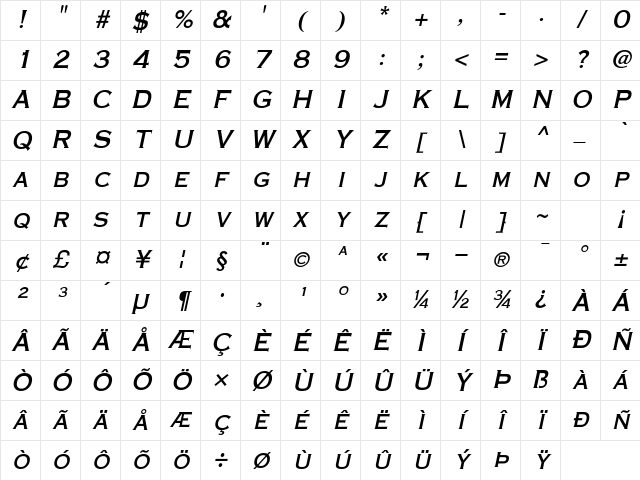
Metalcut is a composed and adaptable typeface that performs quietly and consistently across a wide range of design contexts. The slanted form adds forward momentum and visual energy. Its bold stroke weight gives it real presence on the page.